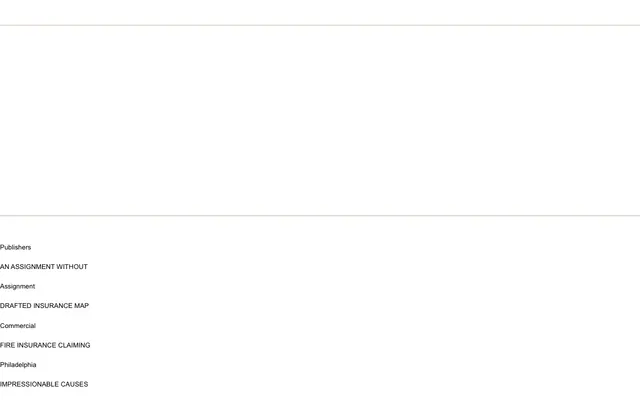
A sprawling grotesque sans with widths running from XXX Compressed to XXX Expanded, reverse cuts and a three-axis variable font.
Staten covers an unusually broad range of widths, from XXX Compressed through to XXX Expanded, with weights from Hairline to Ultra at each step. Oblique and reverse variants add further range, and the variable font exposes weight, width and italic axes for continuous control. With 484 glyphs and support for over 220 languages, it suits both display and text applications across a wide range of Latin-language projects.
Staten is a wide-ranging grotesque sans with multiple widths from XXX Compressed to XXX Expanded, reverse cuts, obliques and variable font axes, placing it firmly in the grotesque sans tradition with display ambitions.